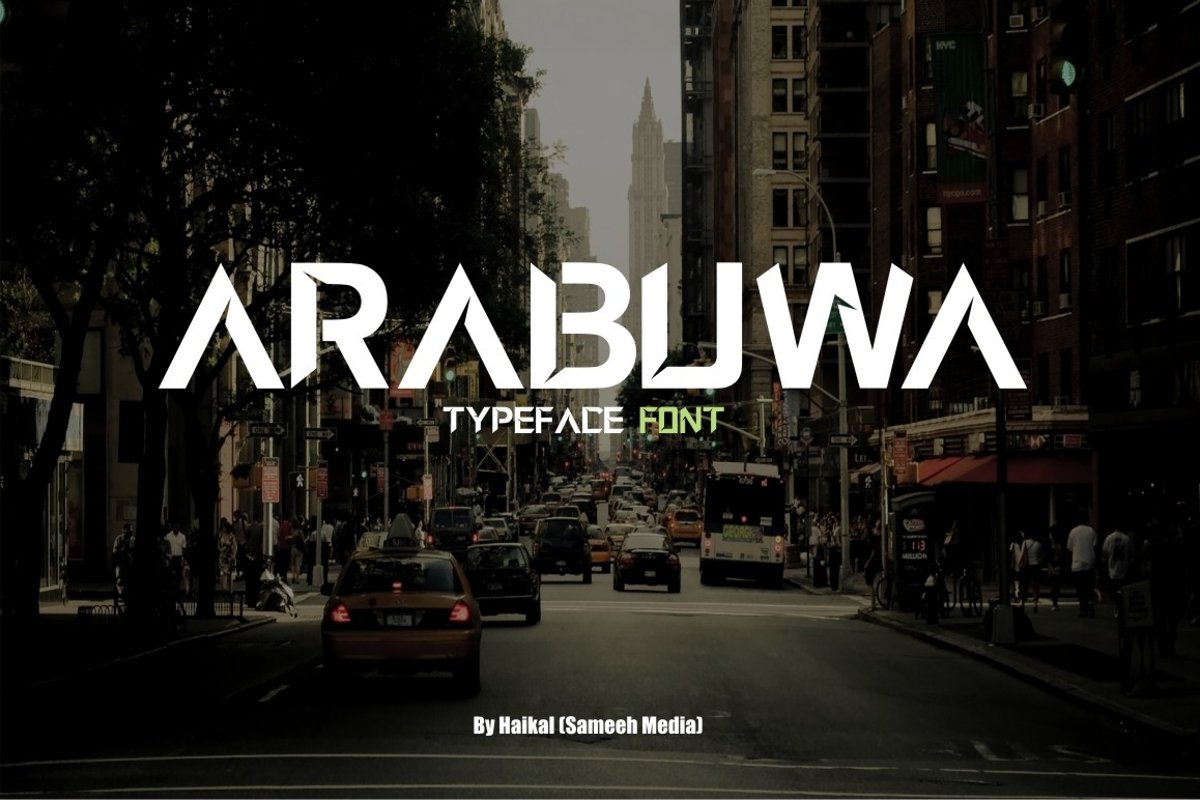
This font was inspired by a historical place in Aceh. Therefore we make this font to commemorate the history of the almost forgotten man. Arabuwa is a clean and simple vintage sans serif font, with smooth edges to simulate vintage printing. Perfect for vintage logo designs, headers and small amounts of text. It contains an uppercase alphabet with numbers and symbols.